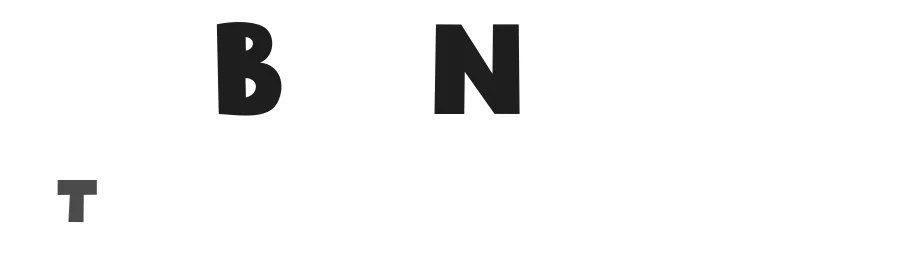
About Powerful Font
Powerful is a decorative font designed by imagex. It includes 236 glyphs, a regular weight, TTF (TrueType) format, and 209 languages. Powerful is free to download; check the license details on this page before commercial use. Decorative fonts like Powerful work best for logos, posters, packaging, and standout headlines.
Powerful Font is a decorative font that shines as a display or heading face. Pair it with a clean sans-serif or serif font for body text β the contrast creates a clear hierarchy while the two styles stay balanced and easy to read.